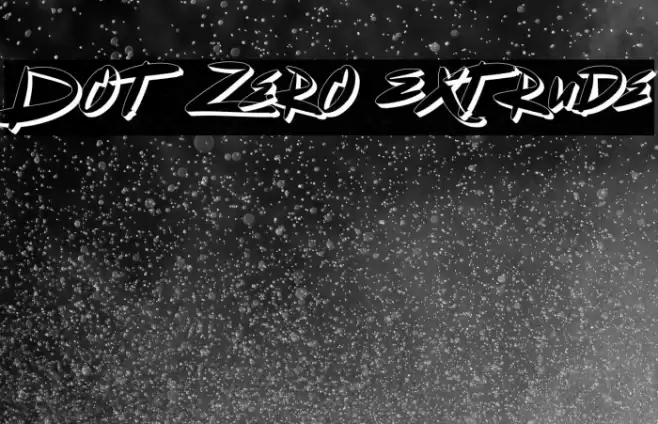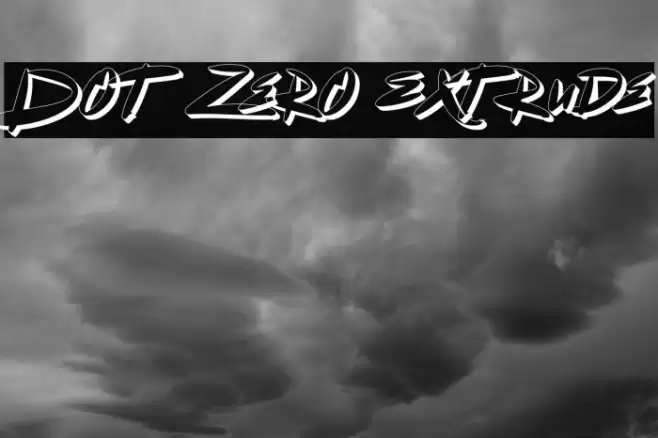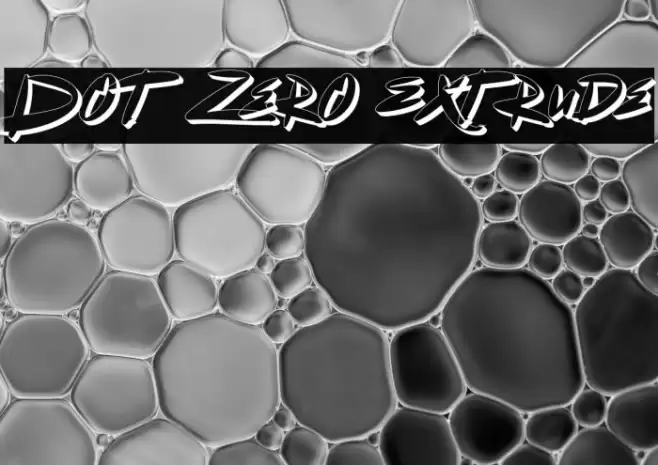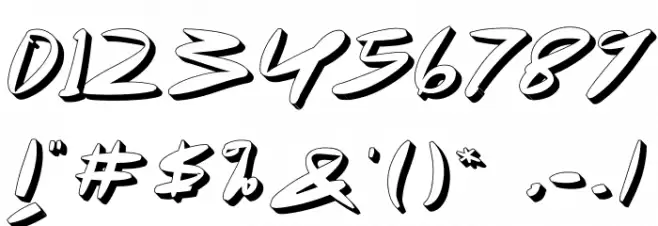
Dot Zero Extrude Font
Dot Zero Extrude Description
This font features a dynamic and bold script style with a three-dimensional extruded effect, giving it a striking and modern appearance. The letters are characterized by fluid, sweeping strokes that convey a sense of motion and energy. The uppercase and lowercase letters maintain a consistent style, with exaggerated curves and angles that enhance the font's expressive nature. The numbers and special characters are designed to match the overall aesthetic, ensuring a cohesive look across all text. The font's unique extruded shadow adds depth, making it ideal for eye-catching designs.
A bold, dynamic script font with a 3D extruded effect, perfect for modern designs from Uncategorized fonts.
- Proposed Projects: Ideal for branding, posters, album covers, and any project requiring a bold, energetic typeface.